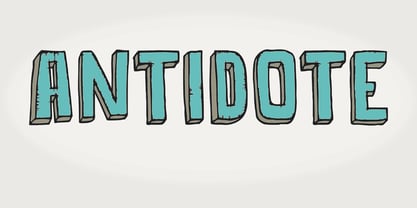
Antidote
by Hanoded
About Antidote Font Family
Antidote is a grungy 3-D font. It is hand drawn and has been given a 'cracked' look. Looks great in headlines, titles and on packaging, but I wouldn't set a text in it as it is quite heavy.
Designers: David Kerkhoff
Publisher: Hanoded
Foundry: Hanoded
Design Owner: Hanoded